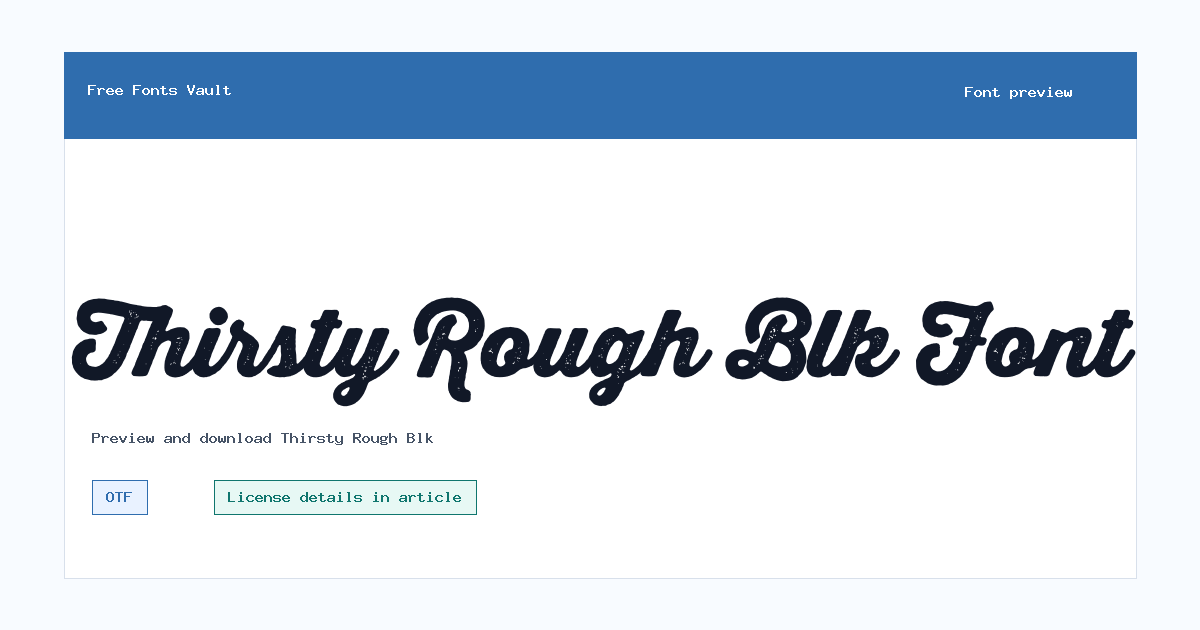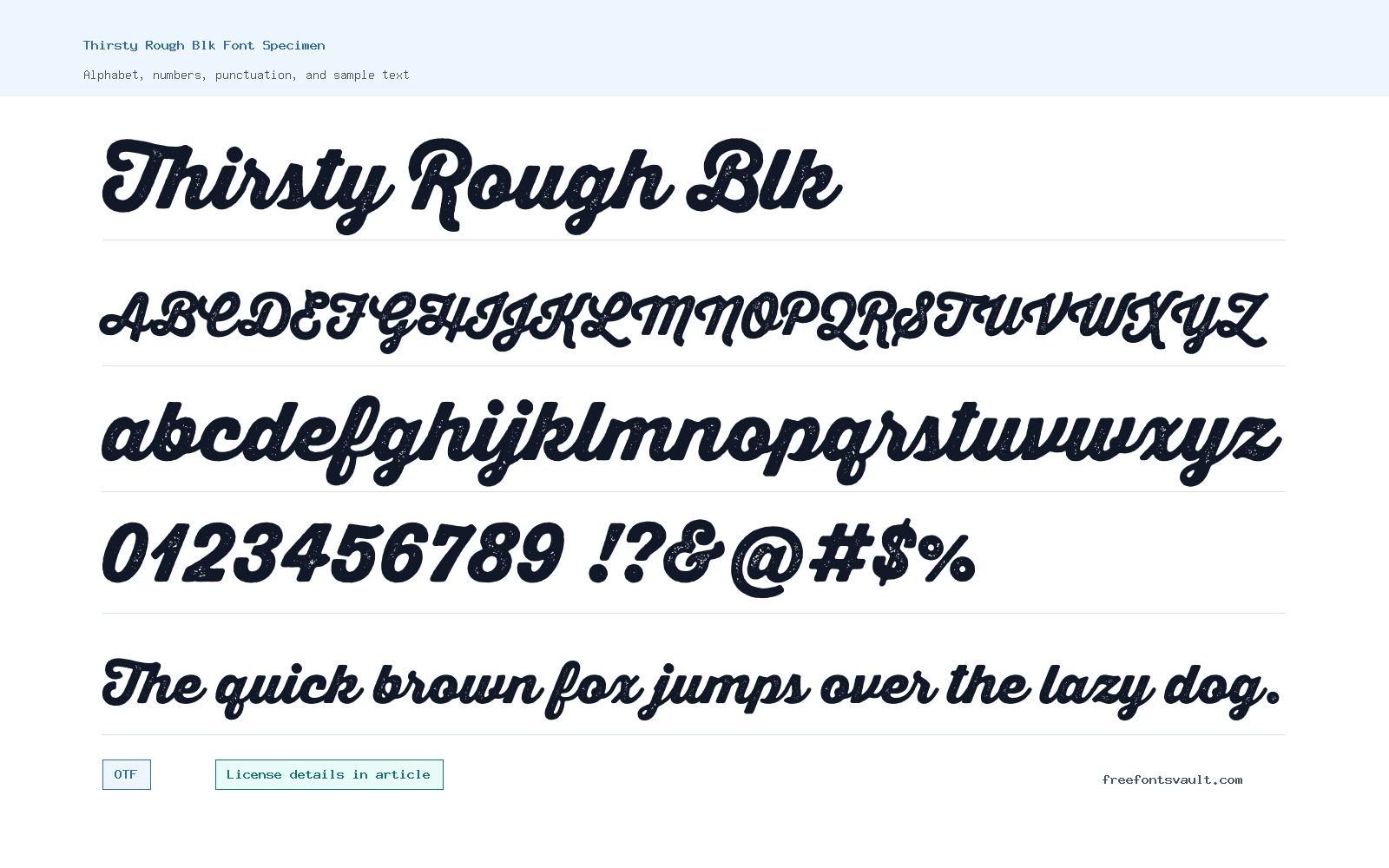
Thirsty Rough Blk
• Designer Ryan Martinson
• Foundry Ryan Martinson
Thirsty Rough Blk is the Black weight of Thirsty Rough, a distressed script display font with a heavy, textured look made for short, high-impact lettering.
Thirsty Rough Blk has the feel of bold script type pressed through an aged print process. Its thick strokes, rough edges, and vintage texture make it stronger for display work than for quiet reading. The style fits designs that need a worn, handmade look without becoming too loose or casual. Ryan Martinson and Yellow Design Studio connect Thirsty Rough to the wider Thirsty family, including Thirsty Script, with the rough version adding an older letterpress-style surface.
Use this font when the words are meant to be noticed quickly: logos, badges, poster headlines, packaging mockups, menu headers, coffee or brewery branding drafts, and retro title treatments. Because this is a heavy rough script, it works best at medium to large sizes. Test uppercase, lowercase, and short phrases in the preview before downloading, especially if your design includes tight spacing, small labels, or longer lines of text.
• Heavy Black weight with a distressed script/display texture
• Vintage letterpress-inspired roughness suited to short titles
• Best for display settings rather than paragraphs or small UI text
• Vintage logos and badge-style lettering
• Packaging mockups and product labels at larger sizes
• Posters, signs, and bold retro headlines
• Coffee, bakery, restaurant, or brewery branding drafts
• Short social graphics or promotional title text
Thirsty Rough is associated with Ryan Martinson and Yellow Design Studio.
Keep the text short and give the letters room to breathe. The rough texture and heavy script strokes can lose clarity in small captions, narrow labels, dense menus, or long paragraphs. For a clean layout, pair it with a simple sans serif or plain serif for supporting text, and let Thirsty Rough Blk handle only the main display words.
What kind of font is Thirsty Rough Blk?
It is a heavy distressed script display font. The Black weight gives it a bold vintage look with rough, letterpress-style texture.
Who designed Thirsty Rough?
Thirsty Rough is credited to Ryan Martinson / Yellow Design Studio.
Is Thirsty Rough Blk good for body text?
No. Its heavy weight and rough script texture are better for short display text such as logos, badges, posters, and headlines.